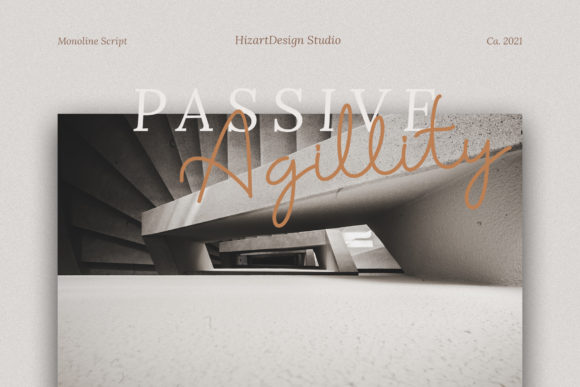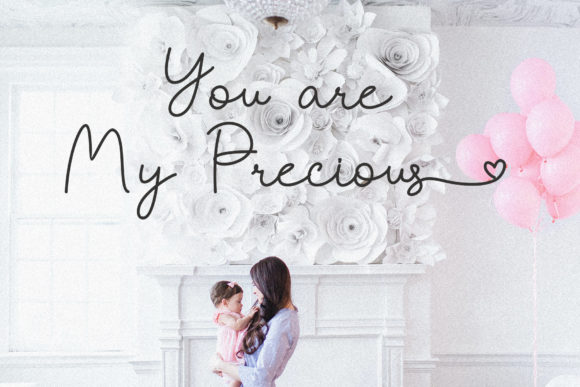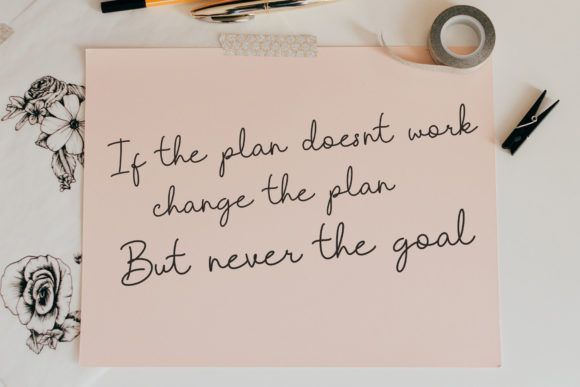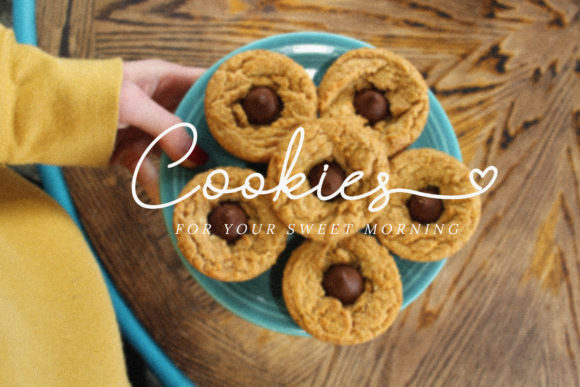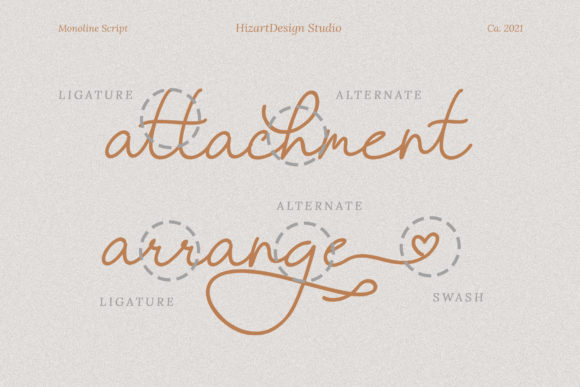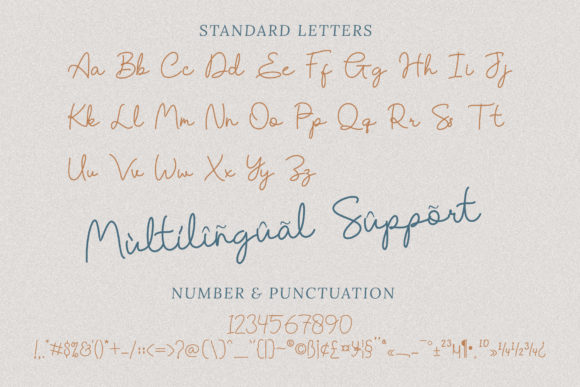
Discover the Elegance of Ballada Font: A Delicate Handwritten Beauty
Are you a designer or crafter looking for a font that exudes elegance and sophistication? Look no further than the stunning Ballada Font. This thin lettered, beautiful, and delicate handwritten font is sure to capture your heart with its incredibly versatile style. In this article, we’ll dive into the world of Ballada Font, exploring its features, benefits, and uses, and why it’s a must-have for any creative project.
What is Ballada Font?
Ballada Font is a gorgeous, handcrafted font that boasts a delicate and elegant appearance. Its thin letters and beautiful swashes make it perfect for a wide range of design projects, from wedding invitations and stationery to branding and packaging. With its PUA (Private Use Area) encoding, Ballada Font offers effortless access to all glyphs and swashes, allowing you to unleash your creativity and produce breathtaking designs.
Key Features of Ballada Font
- PUA Encoded: Ballada Font is PUA encoded, making it easy to access all glyphs and swashes, even if you’re not a design expert.
- Thin Lettered: The font’s thin letters give it a delicate and elegant appearance, perfect for designs that require a touch of sophistication.
- Beautiful Swashes: Ballada Font comes with a range of beautiful swashes that can be used to add a personal touch to your designs.
- Versatile: The font’s versatility makes it suitable for a wide range of design projects, from wedding stationery to branding and packaging.
Benefits of Using Ballada Font
So, why should you choose Ballada Font for your next design project? Here are just a few benefits of using this stunning font:
- Elegance and Sophistication: Ballada Font adds a touch of elegance and sophistication to any design project, making it perfect for high-end brands and luxury products.
- Easy to Use: With its PUA encoding, Ballada Font is easy to use, even for designers who are new to font editing software.
- Time-Saving: The font’s extensive range of glyphs and swashes saves you time and effort, allowing you to focus on the creative aspects of your project.
- Unique Designs: Ballada Font enables you to create unique and eye-catching designs that stand out from the crowd.
Uses of Ballada Font
Ballada Font is an incredibly versatile font that can be used for a wide range of design projects, including:
- Wedding Stationery: Create beautiful wedding invitations, stationery, and decorations with Ballada Font.
- Branding and Packaging: Use Ballada Font to create elegant and sophisticated branding and packaging for high-end products.
- Signage and Displays: The font’s delicate appearance makes it perfect for signage and displays that require a touch of elegance.
- Digital Designs: Ballada Font can be used for digital designs, such as social media graphics, blog headers, and more.
Tips for Using Ballada Font
To get the most out of Ballada Font, here are a few tips to keep in mind:
- Experiment with Swashes: Don’t be afraid to experiment with the font’s beautiful swashes to add a personal touch to your designs.
- Mix and Match: Combine Ballada Font with other fonts to create unique and eye-catching designs.
- Pay Attention to Kerning: Make sure to adjust the kerning to ensure that your text looks elegant and sophisticated.
| Font Name | Ballada Font |
In conclusion, Ballada Font is a stunning, delicate, and elegant handwritten font that is sure to capture your heart. With its PUA encoding, thin letters, and beautiful swashes, it’s perfect for a wide range of design projects. Whether you’re a designer or crafter, Ballada Font is a must-have for any creative project. So why wait? Fall in love with Ballada Font and start creating spectacular designs today!